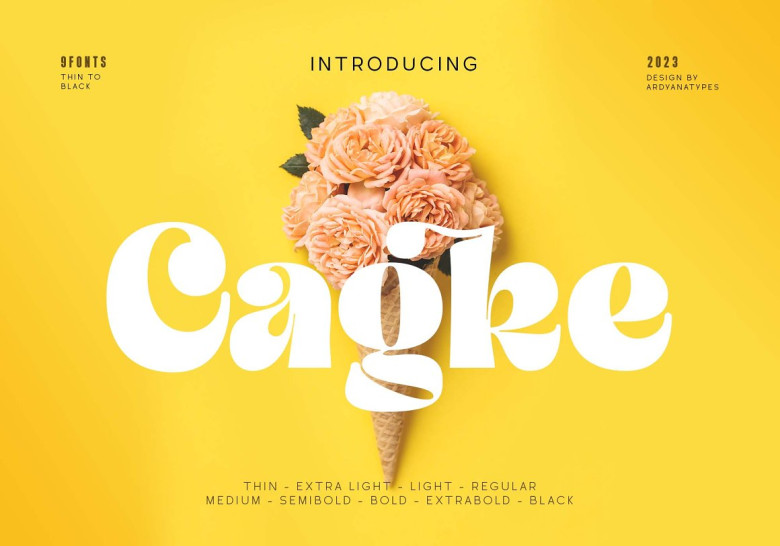
Cagke Font
Cagke is an elegant retro display font with nine weight options that range from thin up to Black for design flexibility. Additionally, Cagke supports multiple languages making it easier for worldwide use while its OpenType features provide additional options and versatility when using this font.
Cagke font is an excellent choice for creating designs with classic, retro or vintage aesthetics, yet also works beautifully in modern and elegant settings. Cagke works great in books, magazines and advertisements projects alike!
Cagke’s ease of use is another distinct advantage; it can easily accommodate various design requirements. It features both classic and retro styles for an enhanced design aesthetic.
Cagke Display Font